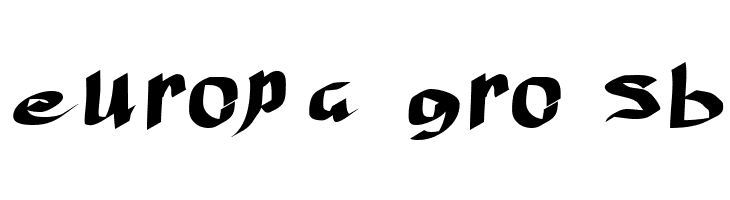
Apayah Loe Font
- Font: Apayah Loe
( Fonts by TarmSaft Font Factory - http://www.aska.nu/tarmsaft/ )
A bold, dynamic font with sharp, angular edges and a modern, edgy aesthetic.